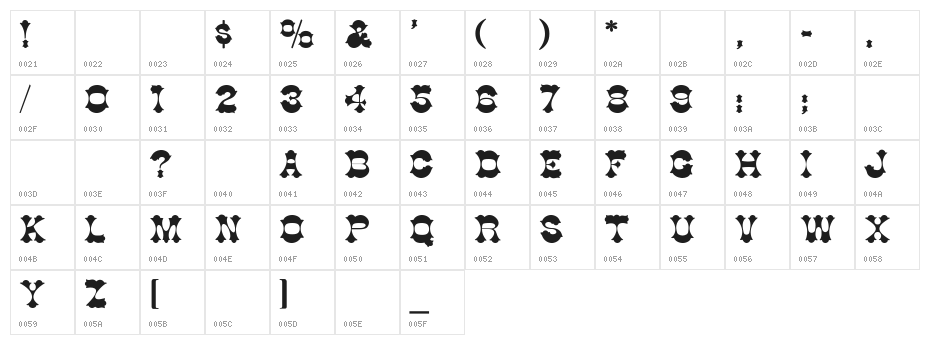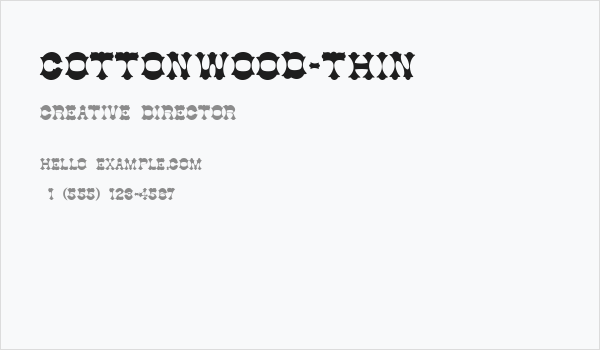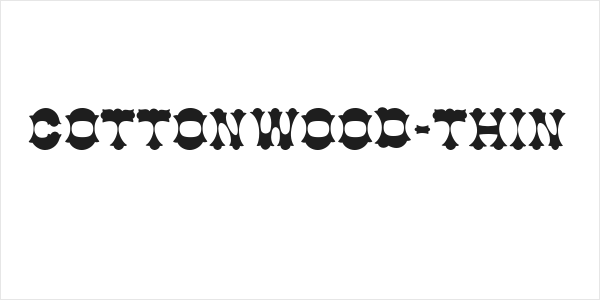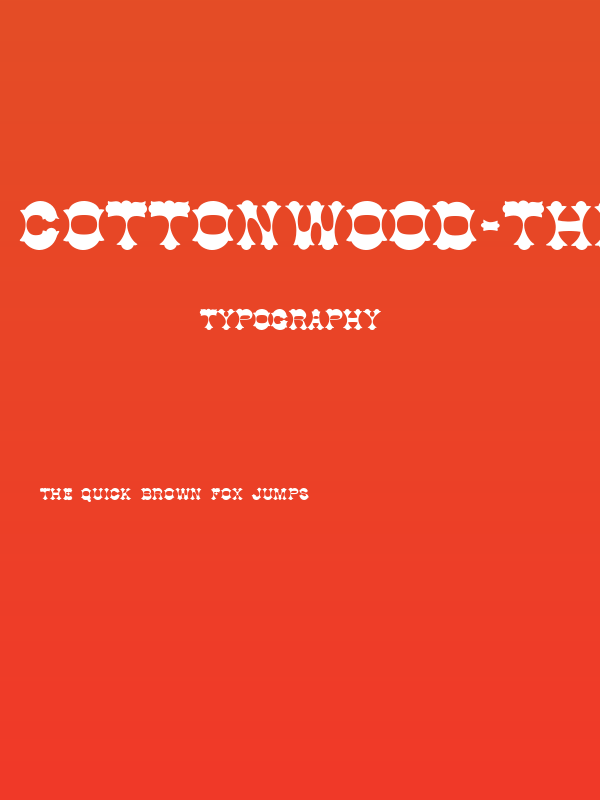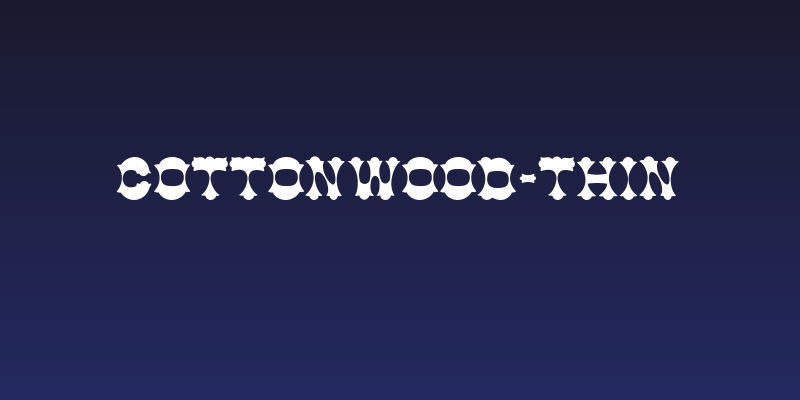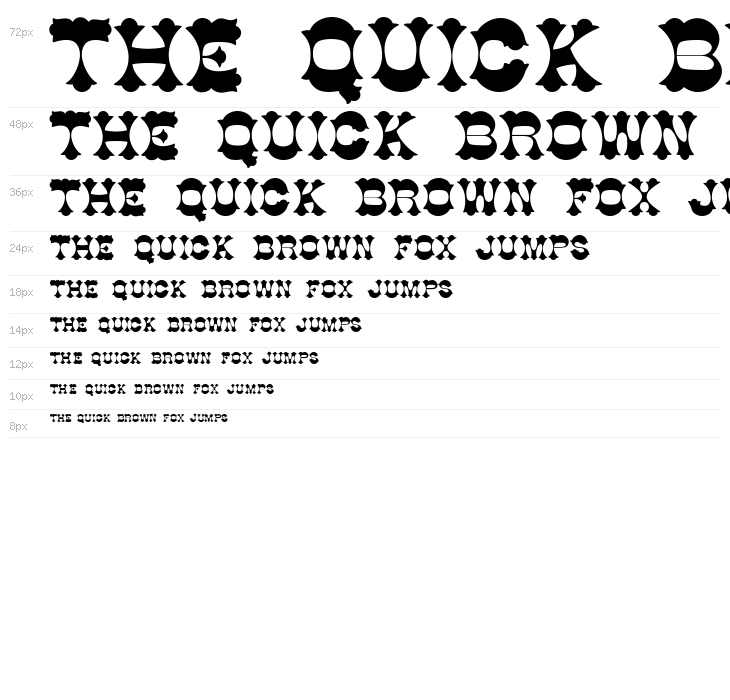
Cottonwood-Thin Font
Cottonwood-Thin Description
This font features a highly decorative and ornate style, characterized by its bold, thick strokes and intricate detailing. The characters are crafted with unique, artistic flourishes that give each letter a distinct appearance. The design includes a combination of sharp angles and rounded edges, creating a dynamic and eye-catching look. The font's playful and whimsical nature makes it stand out, with a strong visual impact that is both creative and expressive. Its elaborate design elements suggest a sense of fantasy and imagination, making it suitable for projects that require a touch of artistic flair.